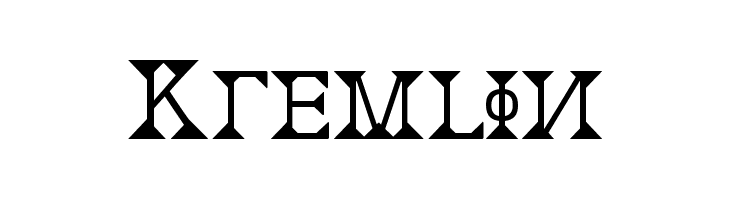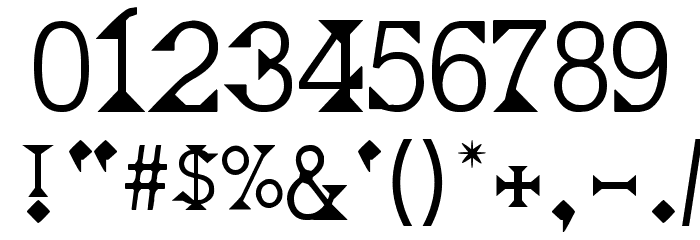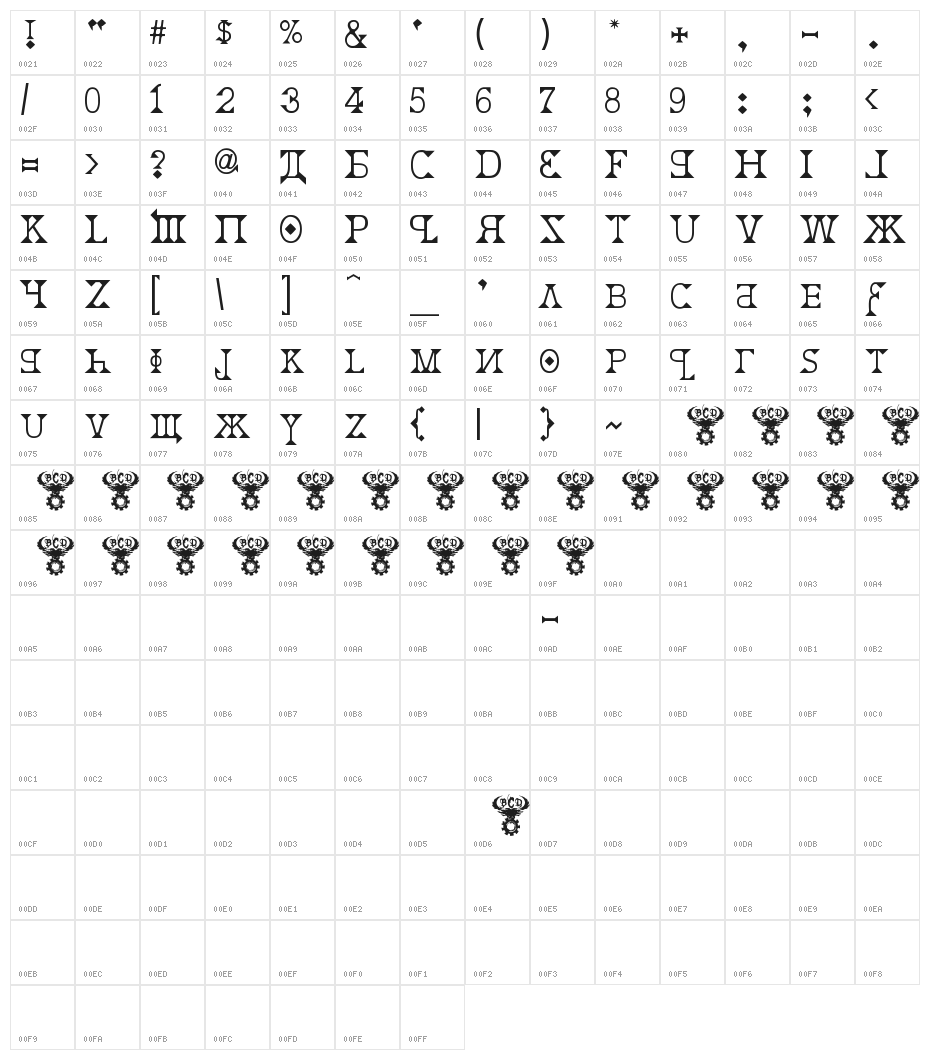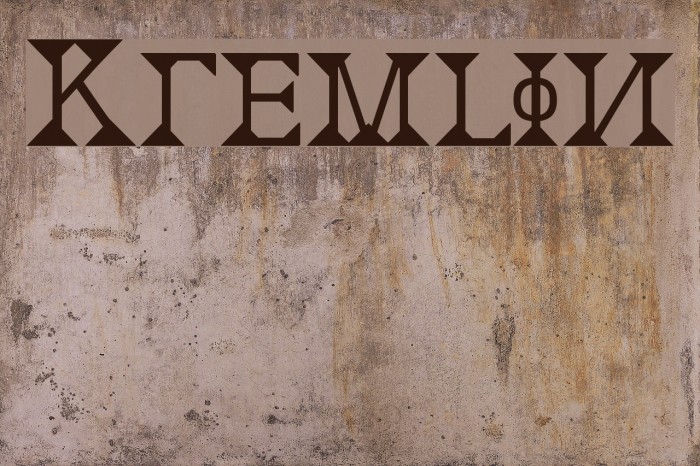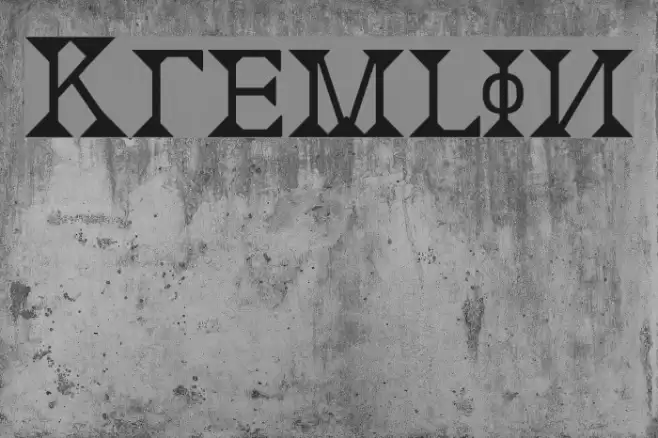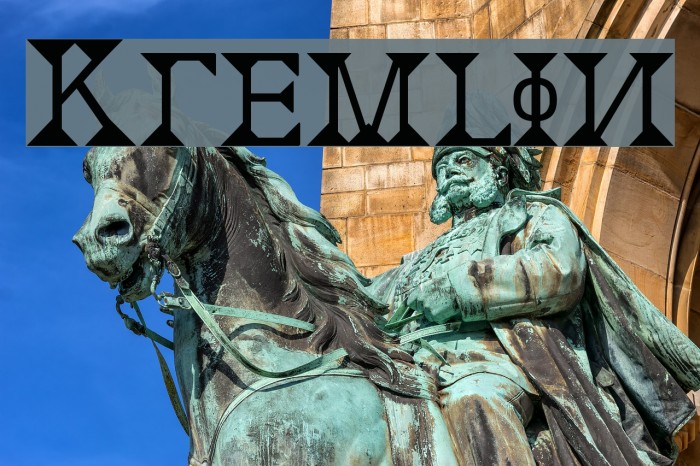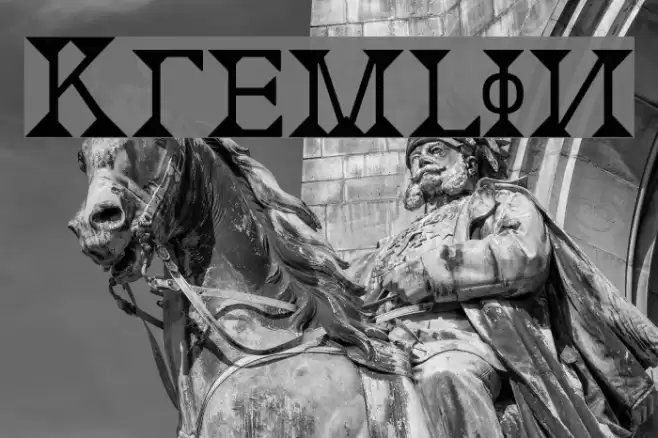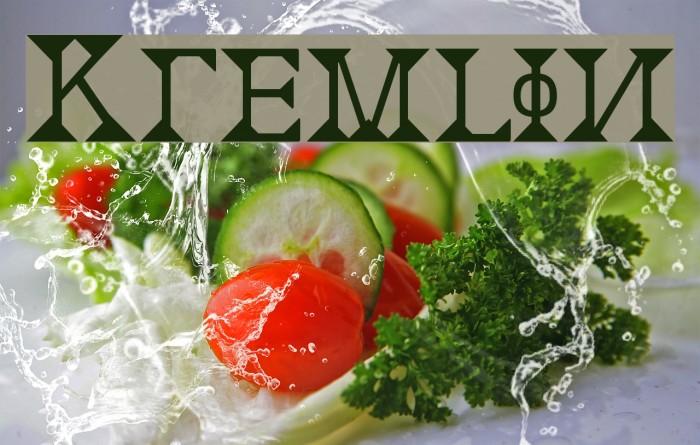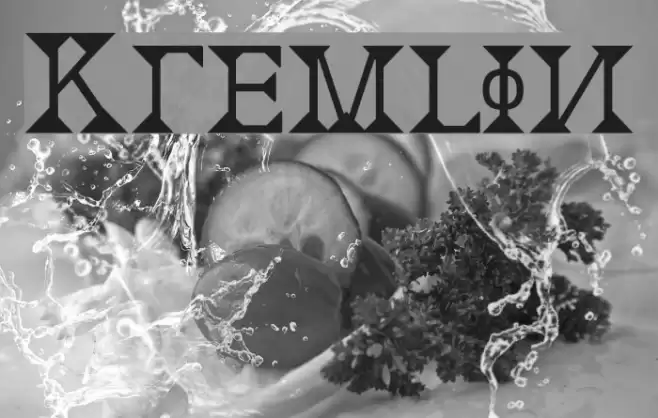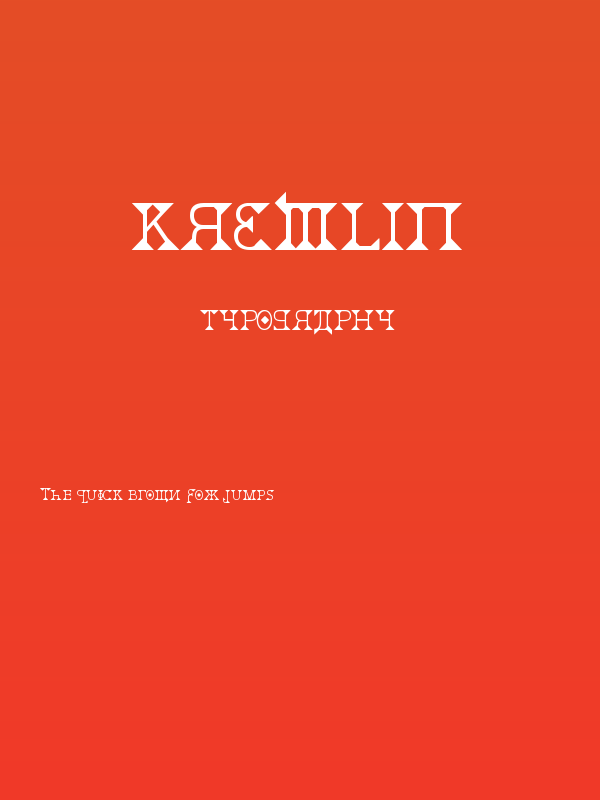
Kremlin Font
Kremlin Description
This font features a bold, geometric design with strong, angular lines and sharp edges. The characters are highly stylized, incorporating unique shapes that give it a distinct, decorative appearance. The uppercase letters are particularly striking, with intricate details that suggest a blend of traditional and modern influences. The numerals and special characters maintain the same boldness and geometric precision, ensuring consistency across the typeface. This font is ideal for making a strong visual impact, with its high contrast and dramatic style.
| Proposed Projects | Ideal for branding, posters, and headlines where a strong, impactful visual is needed. |